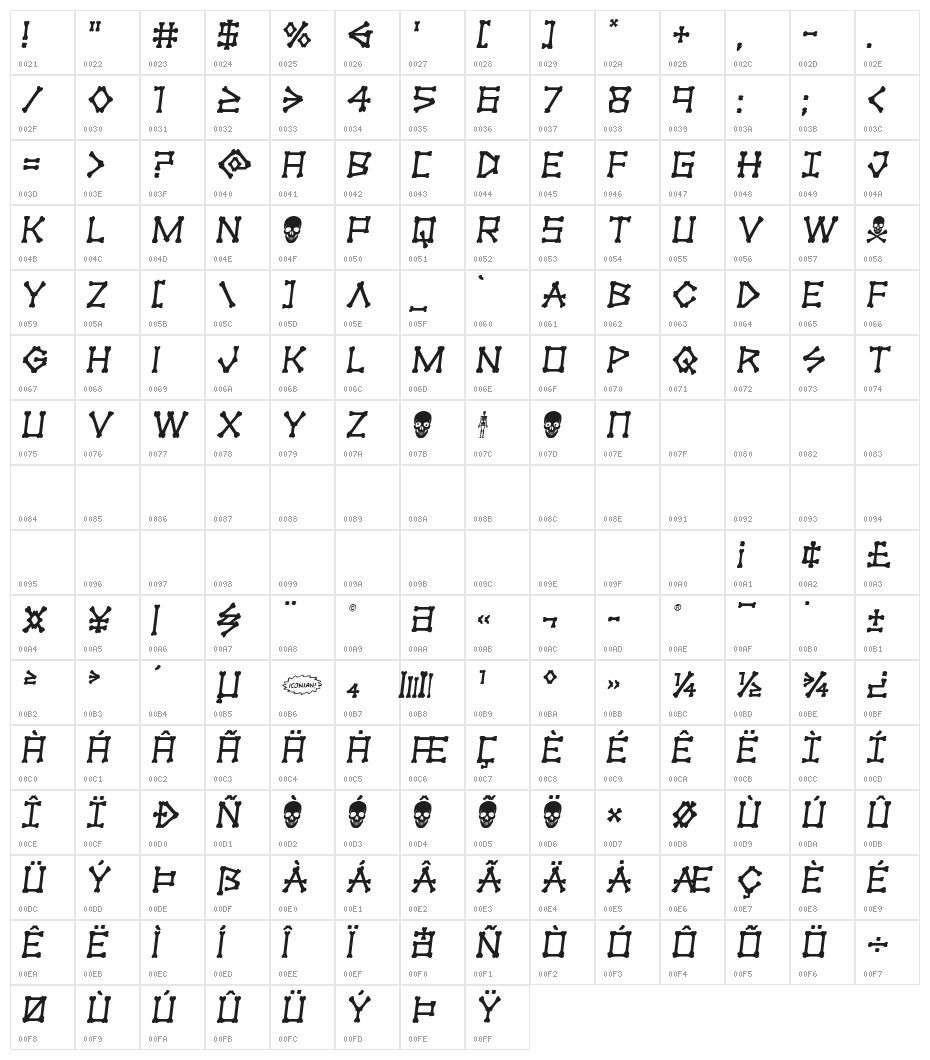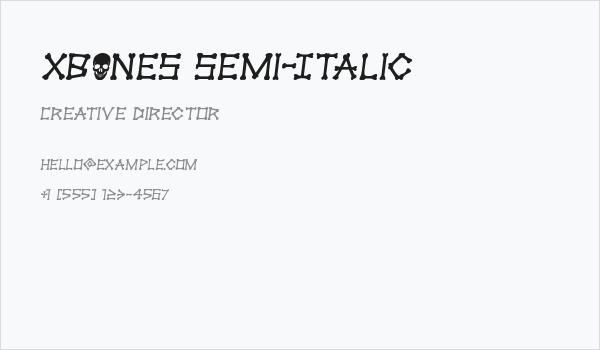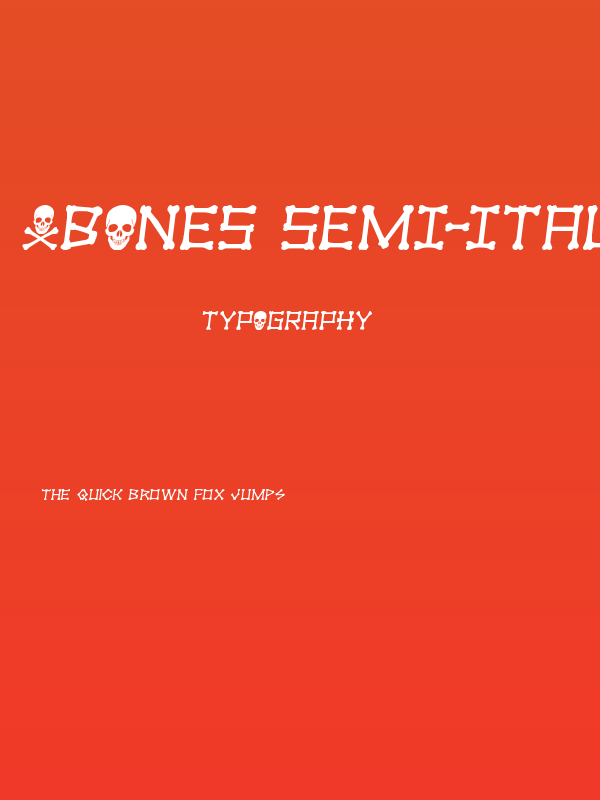
xBONES Semi-Italic Font
xBONES Semi-Italic Description
This font features a unique and playful design that mimics the appearance of bones, giving it a distinct and quirky character. The letters are formed with irregular, jagged lines that resemble skeletal structures, adding a touch of whimsy and creativity. The uppercase and lowercase letters maintain a consistent style, with each character exhibiting a slightly tilted, semi-italicized form. The numbers and special characters follow the same bone-like theme, ensuring a cohesive look throughout. This font is perfect for projects that require a fun, spooky, or Halloween-themed aesthetic, as it captures the essence of a playful yet eerie atmosphere.
| Use Case | Headlines, Logos, Themed Events |
| Proposed Projects | Ideal for Halloween invitations, themed party decorations, children's book titles, and creative posters. |